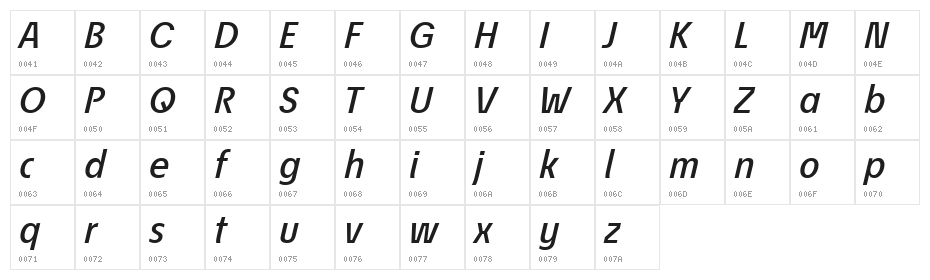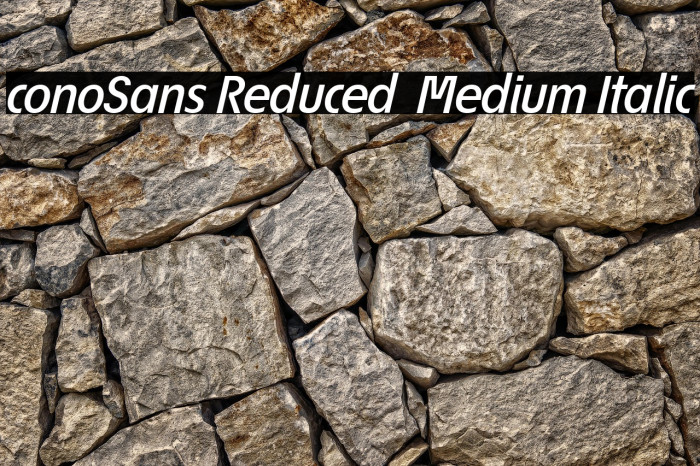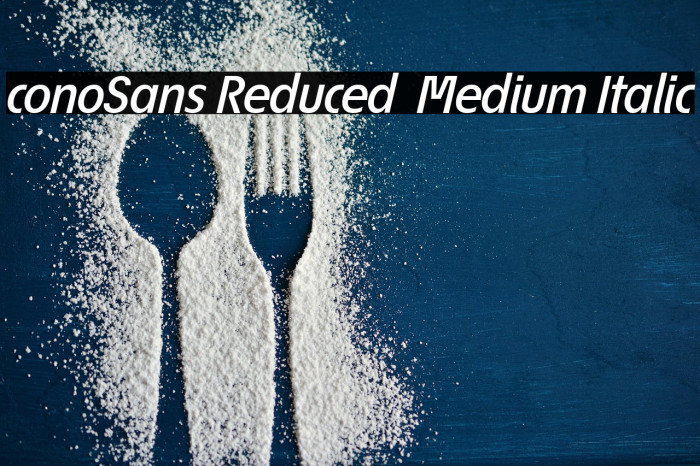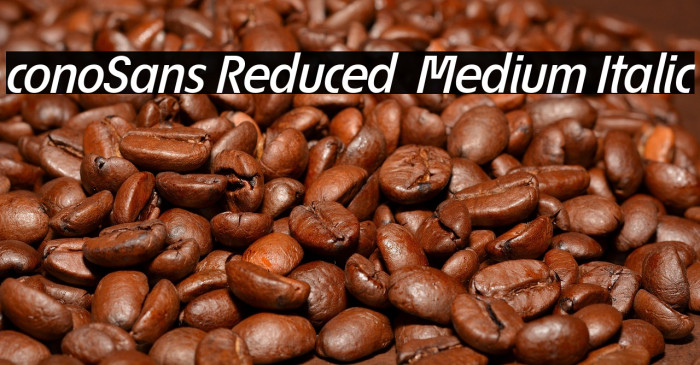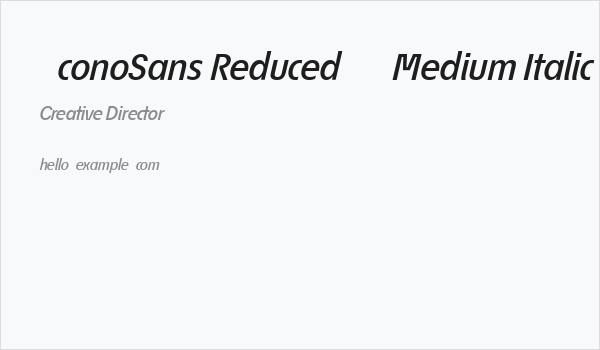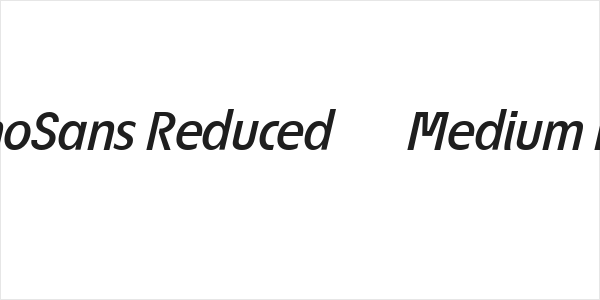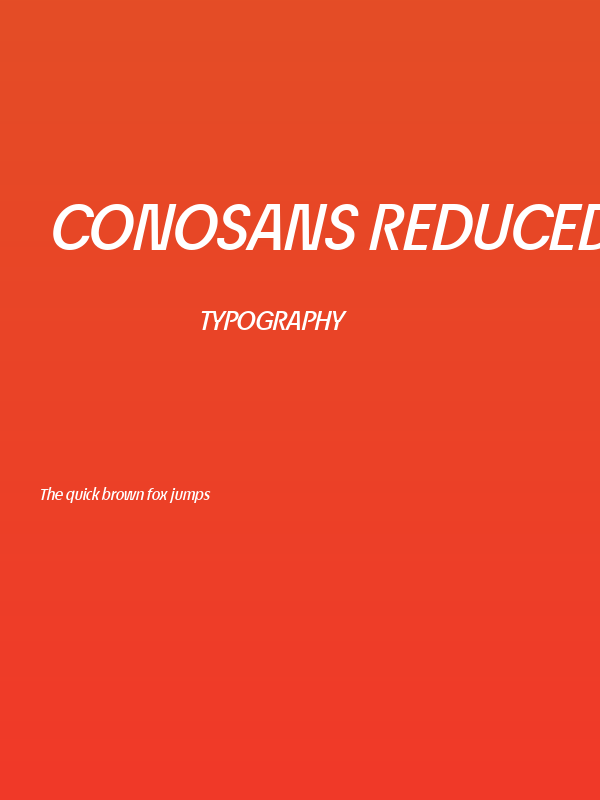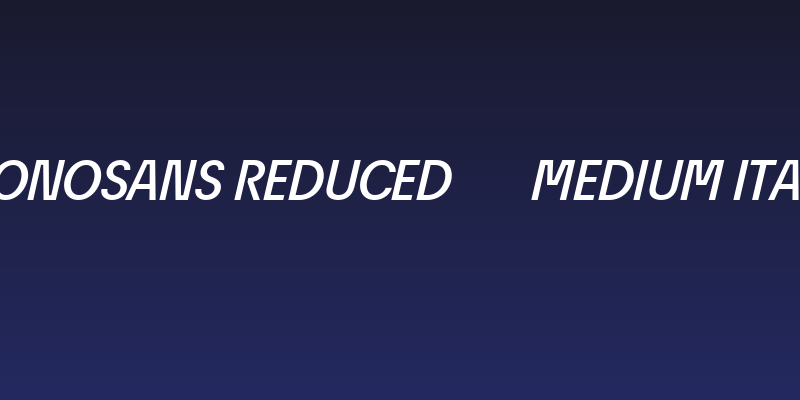
ÉconoSans Reduced 66 Medium Italic Font
ÉconoSans Reduced 66 Medium Italic Description
This font exhibits a clean, modern sans-serif style with a slight italic slant, giving it a dynamic and forward-moving appearance. The characters are well-proportioned, maintaining a consistent medium weight throughout. The design features smooth curves and straight lines, creating a harmonious balance that enhances readability. The uppercase and lowercase letters are distinct, with a subtle elegance that makes them suitable for various design applications. The numerals and special characters are crafted with the same attention to detail, ensuring uniformity across all glyphs.
| Proposed Projects | Ideal for branding, advertising, and editorial design projects where a contemporary and professional look is desired. |